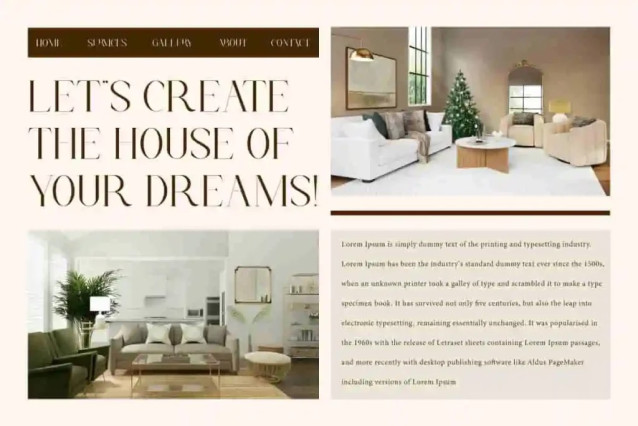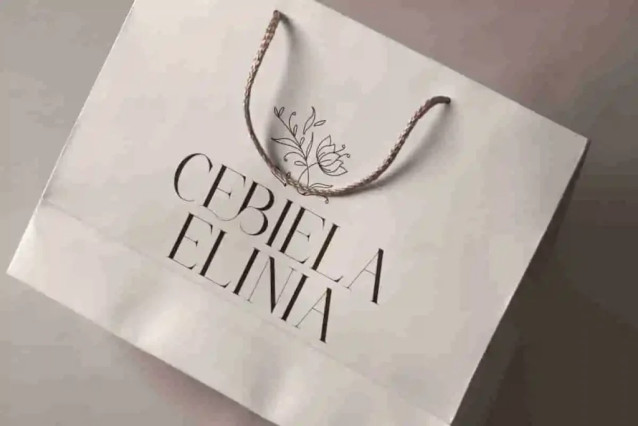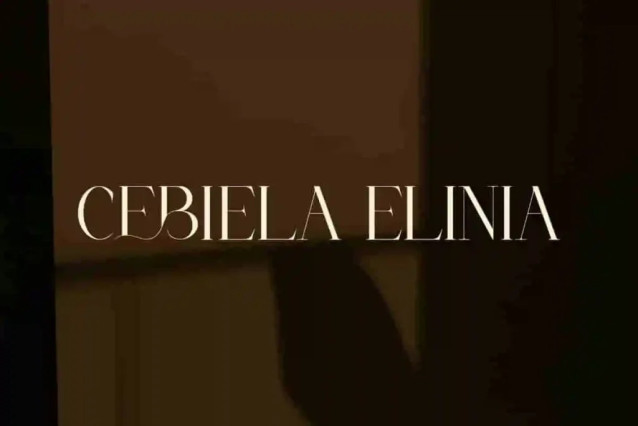
Cebiela Elinia Font
Cebiela Elinia Font is a luxurious and clean serif designed to bring elegance and sophistication to your high-end design projects. Ideal for blogs, brochures, cards design, flyers, headers, invitations, labels, logos, mockup, packaging, paper bags, screen printing, stationery, template, titles, watermarks, websites, etc.
Cebiela Elinia Font includes full set of Uppercase and Lowercase Basic Characters, Numbers, Punctuation, Symbols and Ligature. Inspired by the timeless beauty of classical art, combining modern aesthetics with a touch of vintage luxury. Perfect for accessories and jewelry, boutique, fashion, graphic design, home furniture, real estate, wedding, etc.